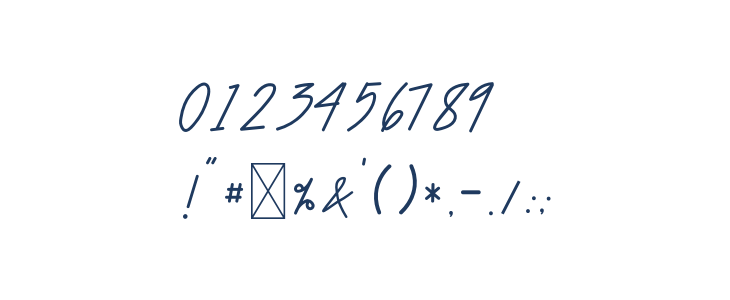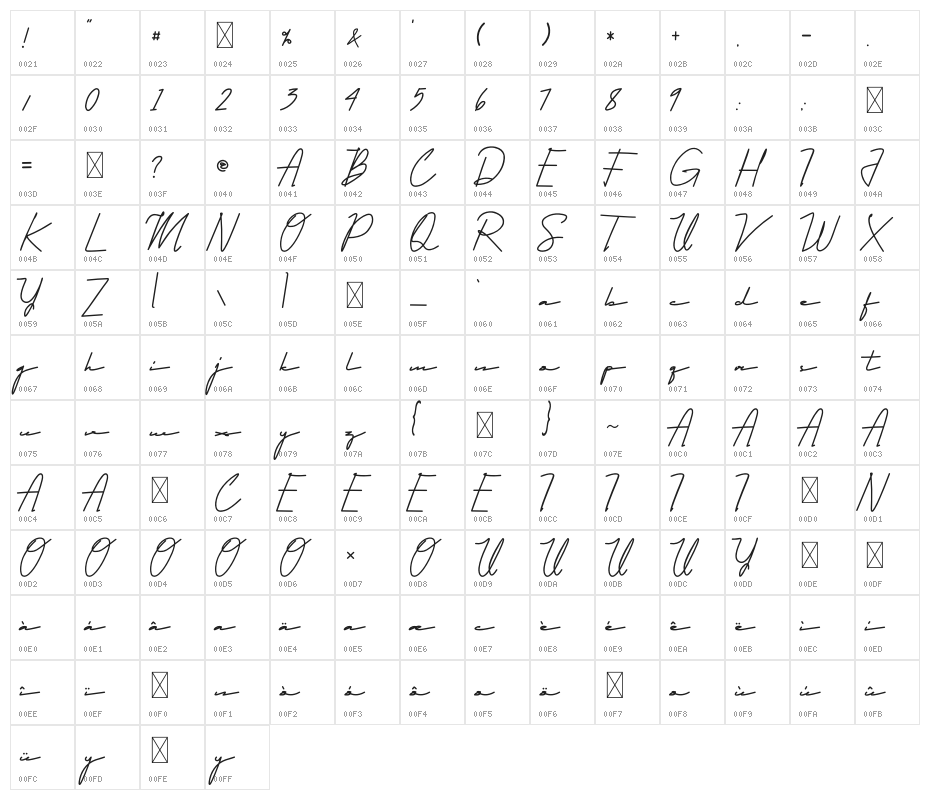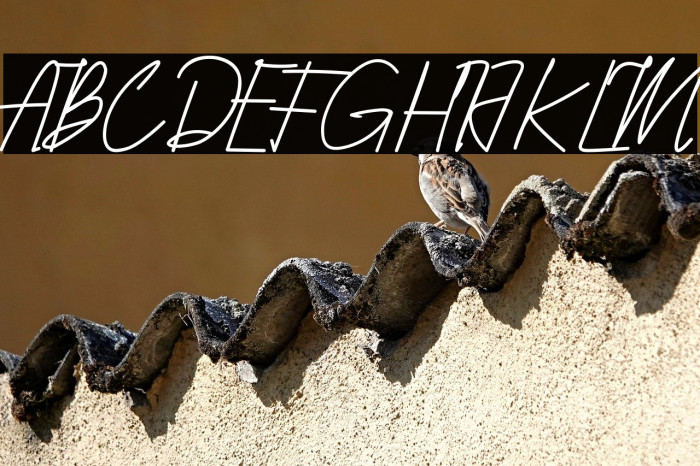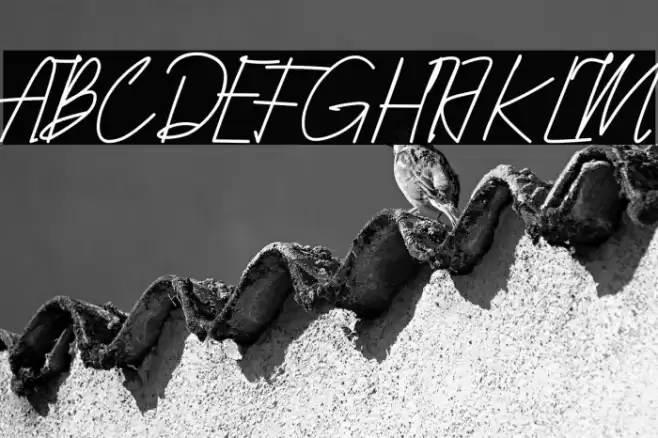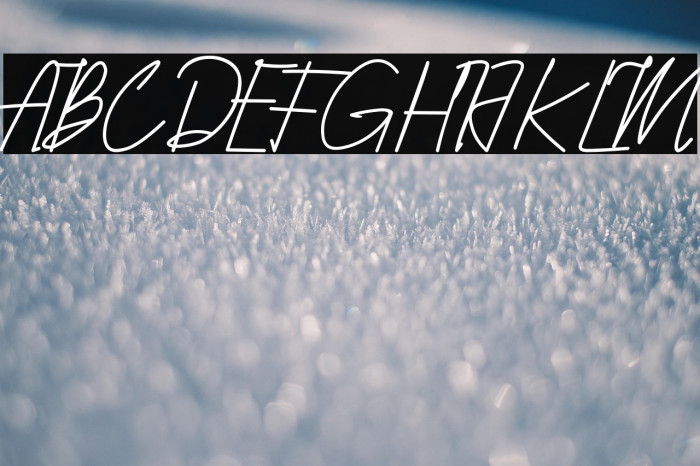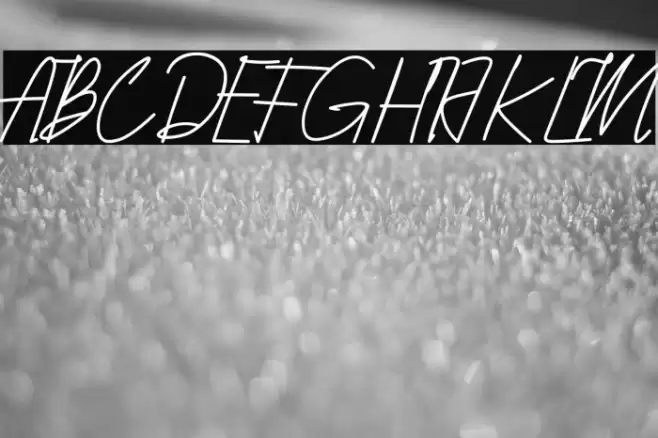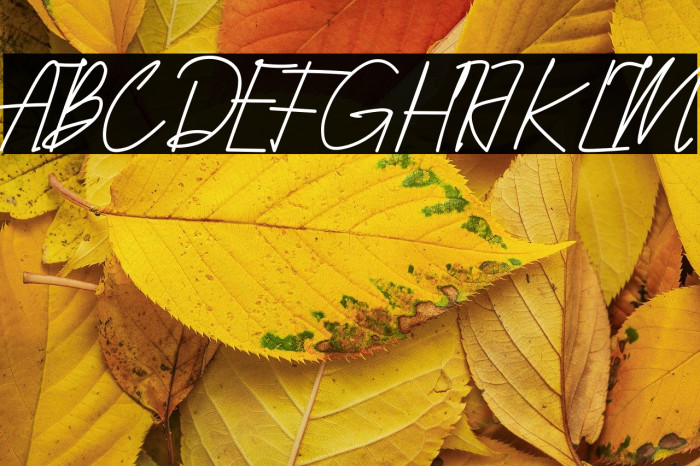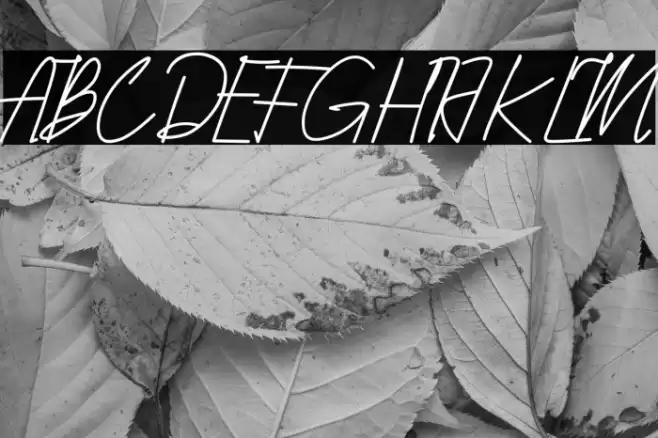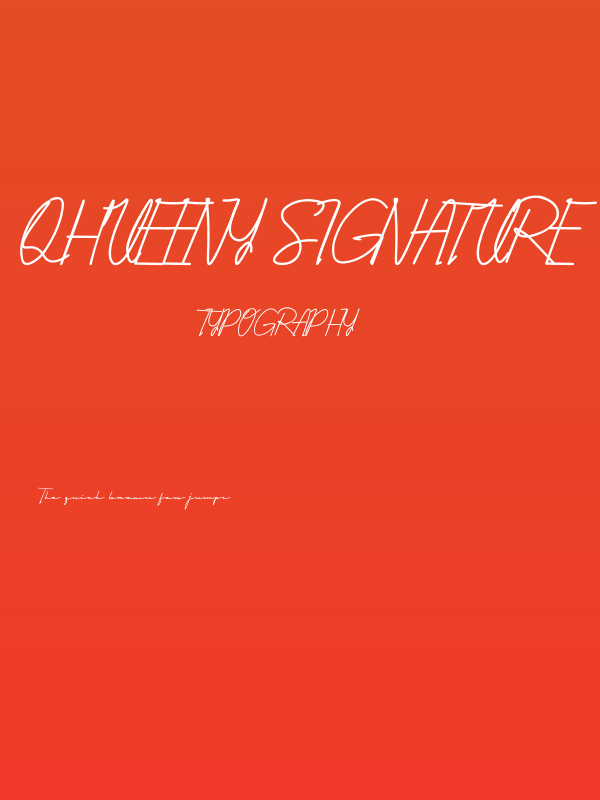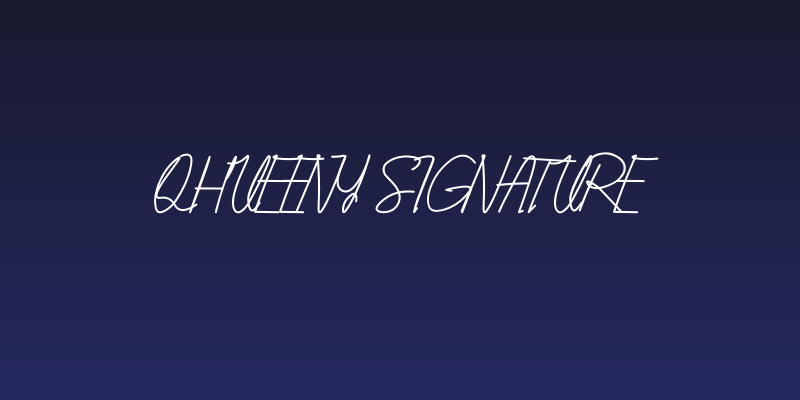
Qhueeny Signature Font
Qhueeny Signature Description
This font exudes a sophisticated and elegant handwritten style, characterized by its fluid and connected letterforms. The uppercase letters are bold and slightly slanted, giving a dynamic and expressive feel. The lowercase letters maintain a consistent flow, enhancing readability while retaining a personal touch. Numbers are clear and distinct, matching the overall cursive theme. Special characters are thoughtfully integrated, maintaining the font's cohesive appearance. This font is ideal for projects that require a personal or artistic flair, such as invitations, branding, or creative designs.
Overall StyleElegant
Use CaseLogos, Invitations, Artistic Designs
Proposed ProjectsIdeal for wedding invitations, personal branding, artistic designs, and creative projects.